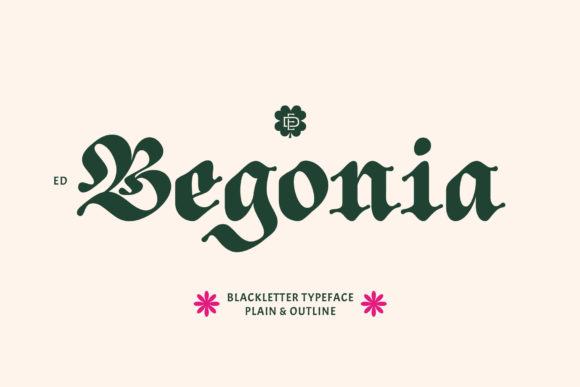
Prepare to be dazzled by ED Begonia, the crown jewel of blackletter fonts, meticulously crafted by the visionary e.myself12. This typographic masterpiece transcends the boundaries of ordinary, inviting you to embark on a journey of creative expression.
ED Begonia captures the allure of vintage elegance, its intricate strokes evoking the nostalgic charm of bygone eras. Yet, it deftly balances tradition with a modern twist, its clean lines and contemporary aesthetic ensuring it remains timelessly relevant.
As you delve into the depths of ED Begonia's glyphs, you'll discover a world of possibilities. Its ornate letterforms dance across the page, lending an air of sophistication and distinction to every project they adorn. From vintage logos that whisper tales of the past to branding that radiates a timeless appeal, ED Begonia empowers you to craft visual masterpieces that resonate with audiences.
But ED Begonia is more than just a beautiful font; it's a catalyst for inspiration. Its unique character breathes life into your designs, inviting you to explore uncharted creative territories. Let ED Begonia be your muse, guiding you towards captivating logos, spellbinding posters, and enchanting invitations that leave an unforgettable mark.